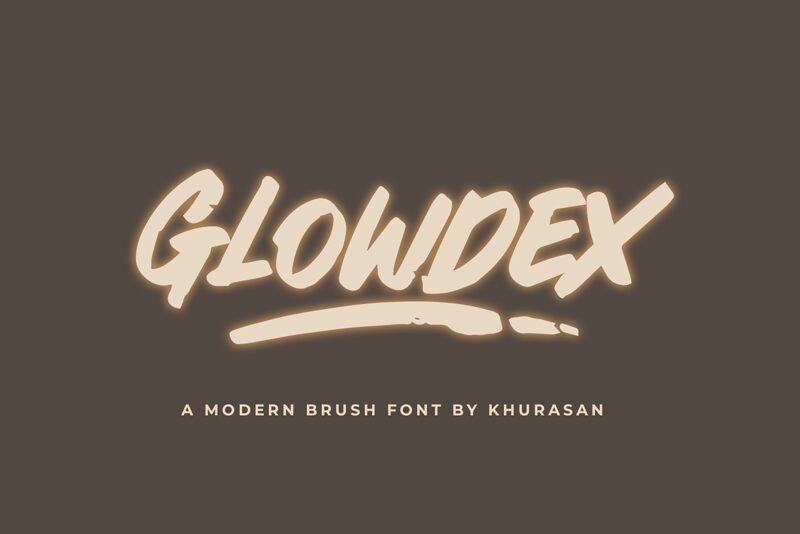
Glowdex
Glowdex, a bold brush font designed by Khurasan, is the ideal choice for a wide range of projects.
Its modern and quirky style makes it perfect for creating eye-catching posters, captivating logos, and stunning magazine layouts. With its bold weight, Glowdex can also be used to design striking book covers that are sure to grab attention. Whether you're looking to create impressive banners or add a touch of uniqueness to your branding materials, this handwritten font will effortlessly elevate your designs.
Explore the versatility of Glowdex and watch as it brings your creative ideas to life with its distinctive charm.